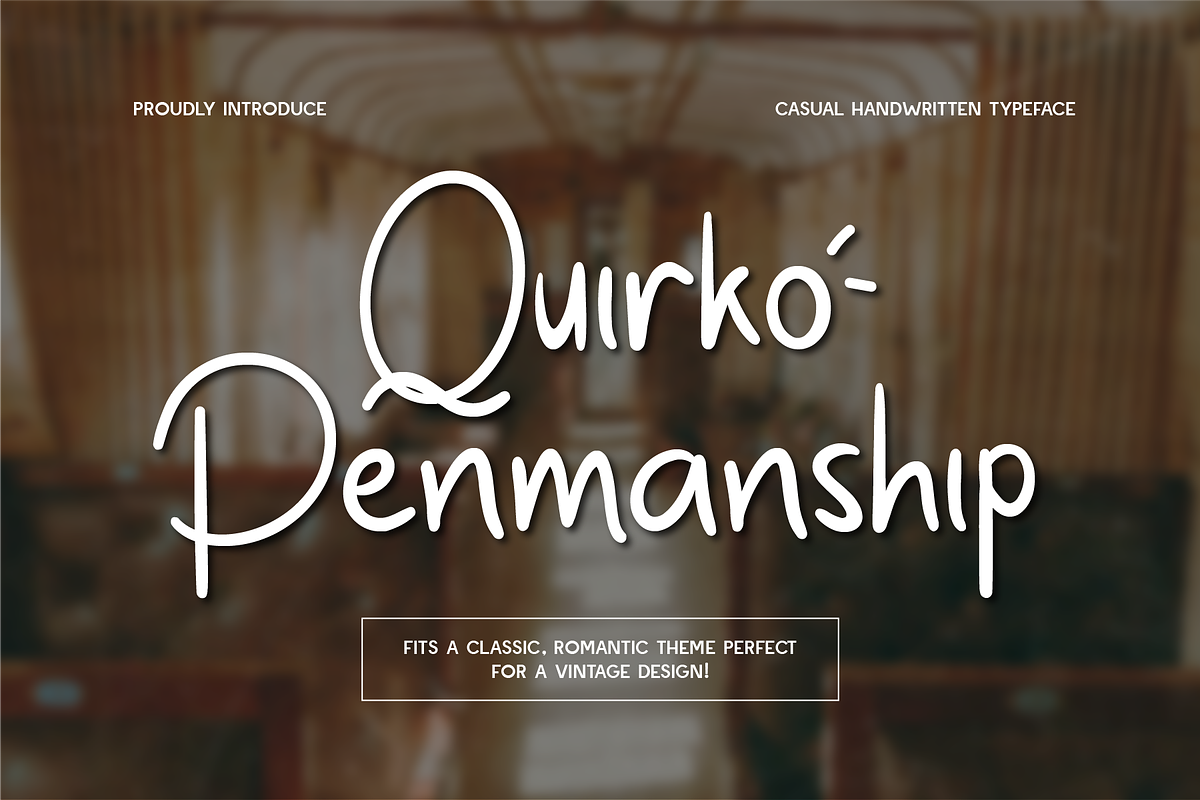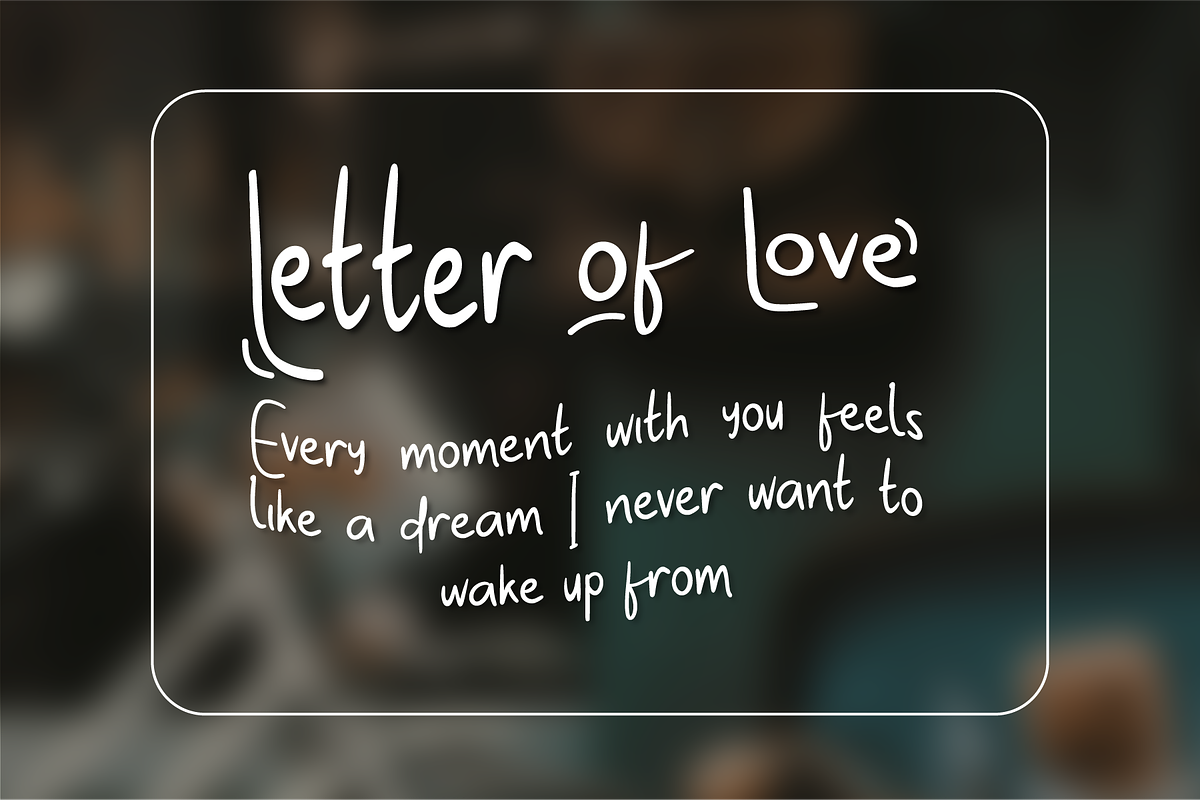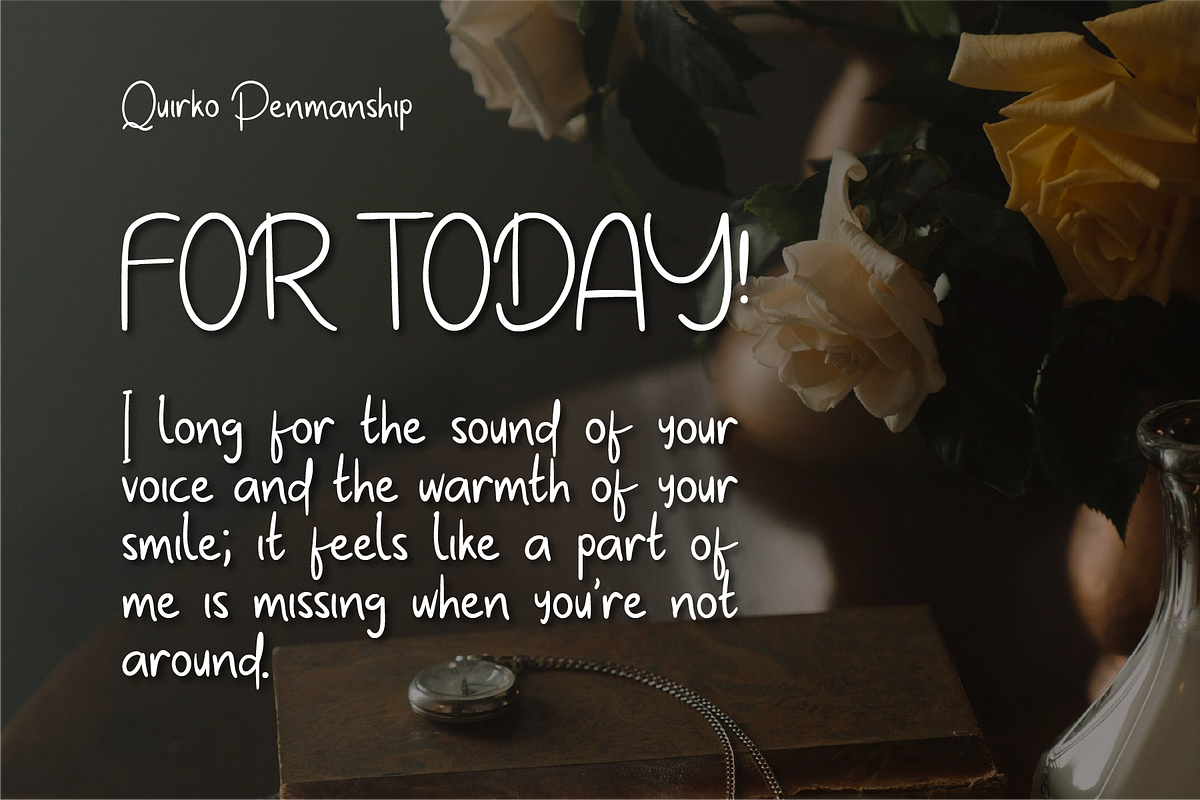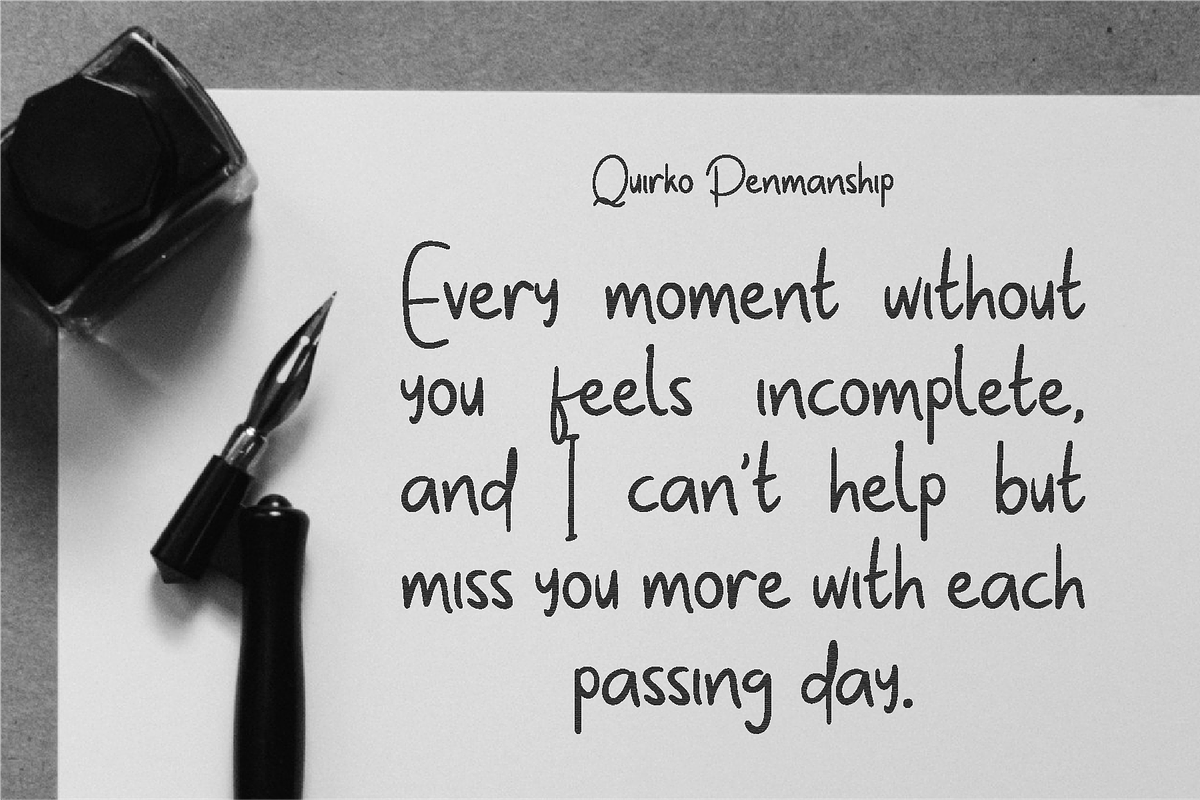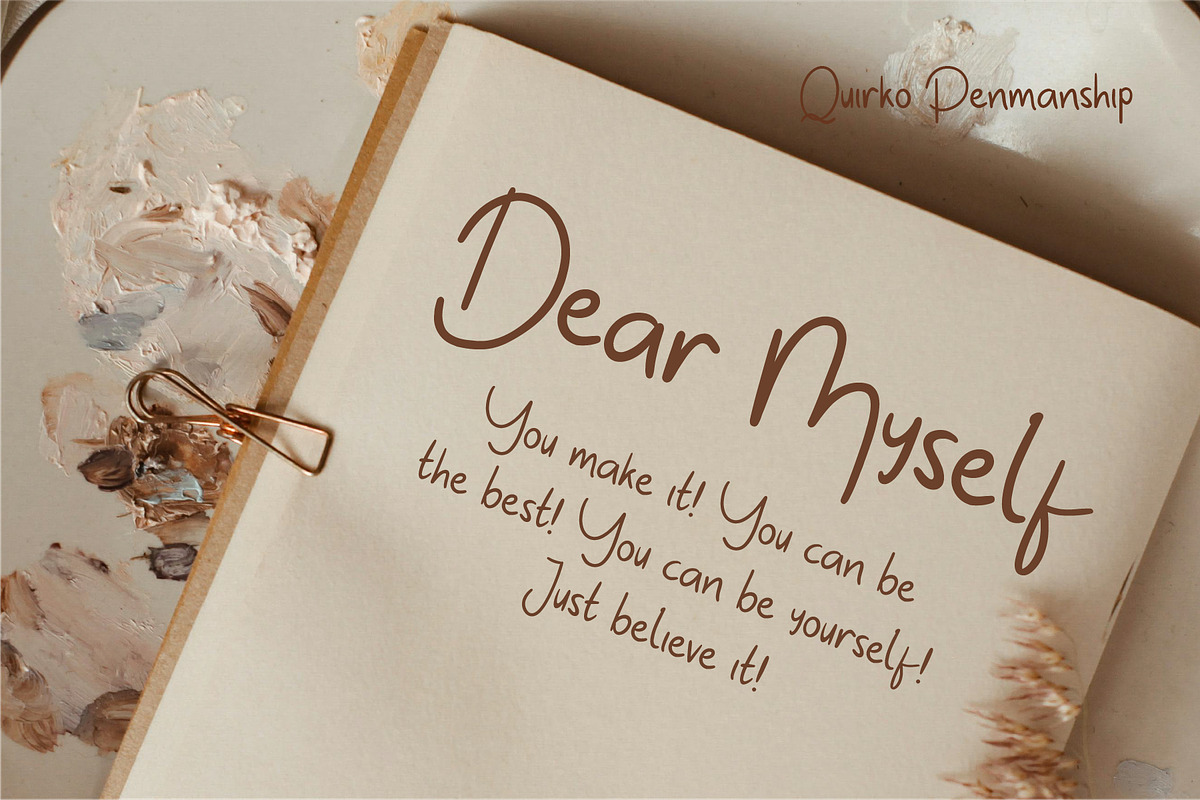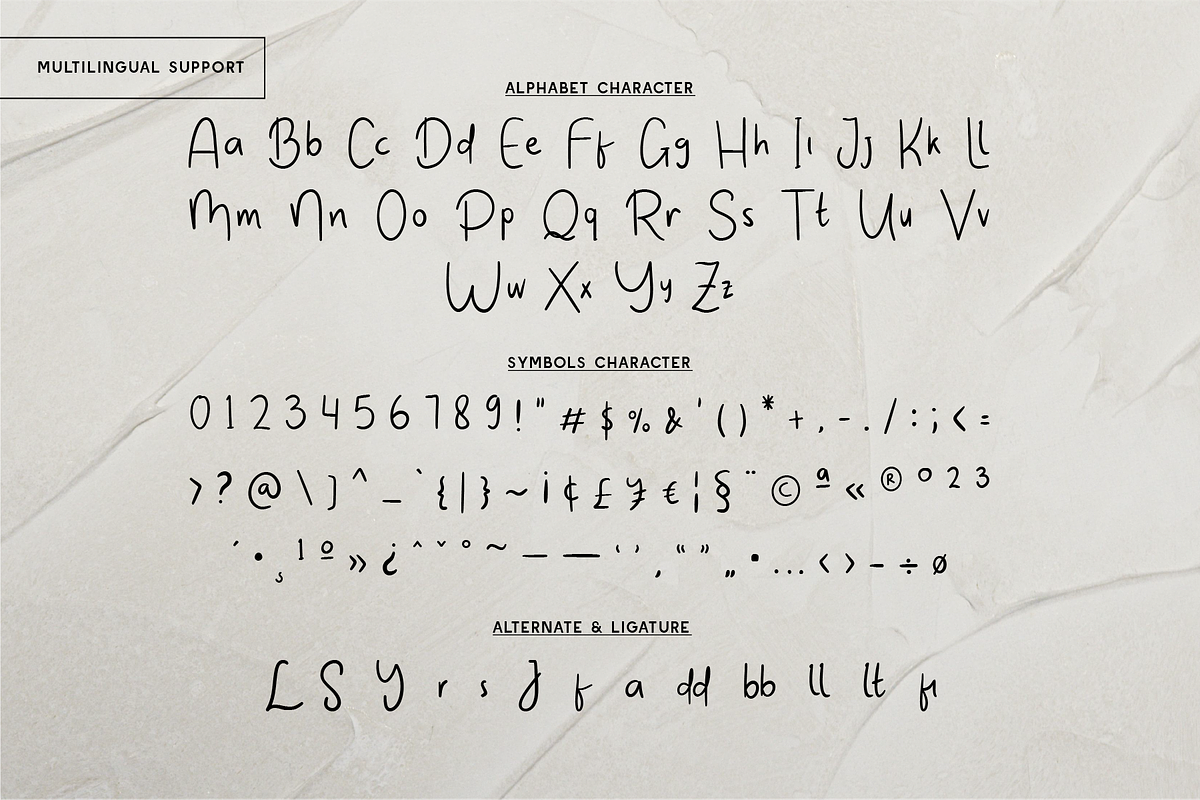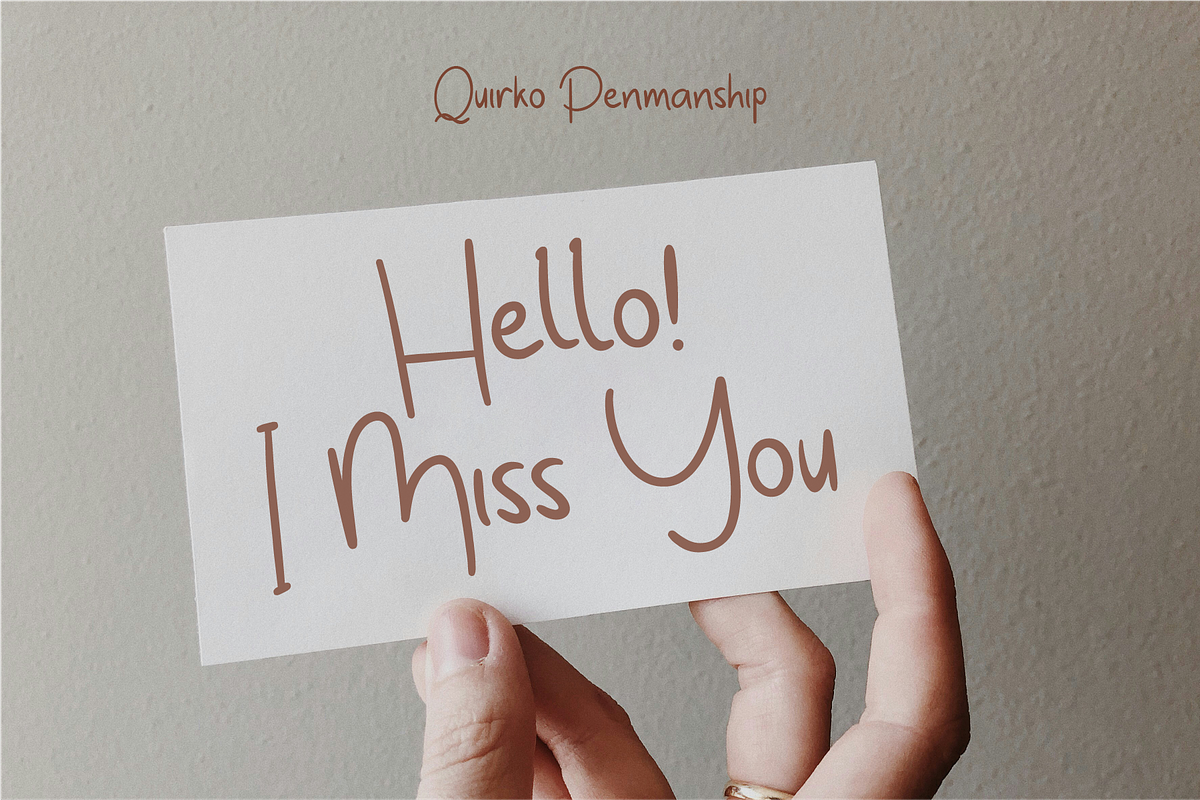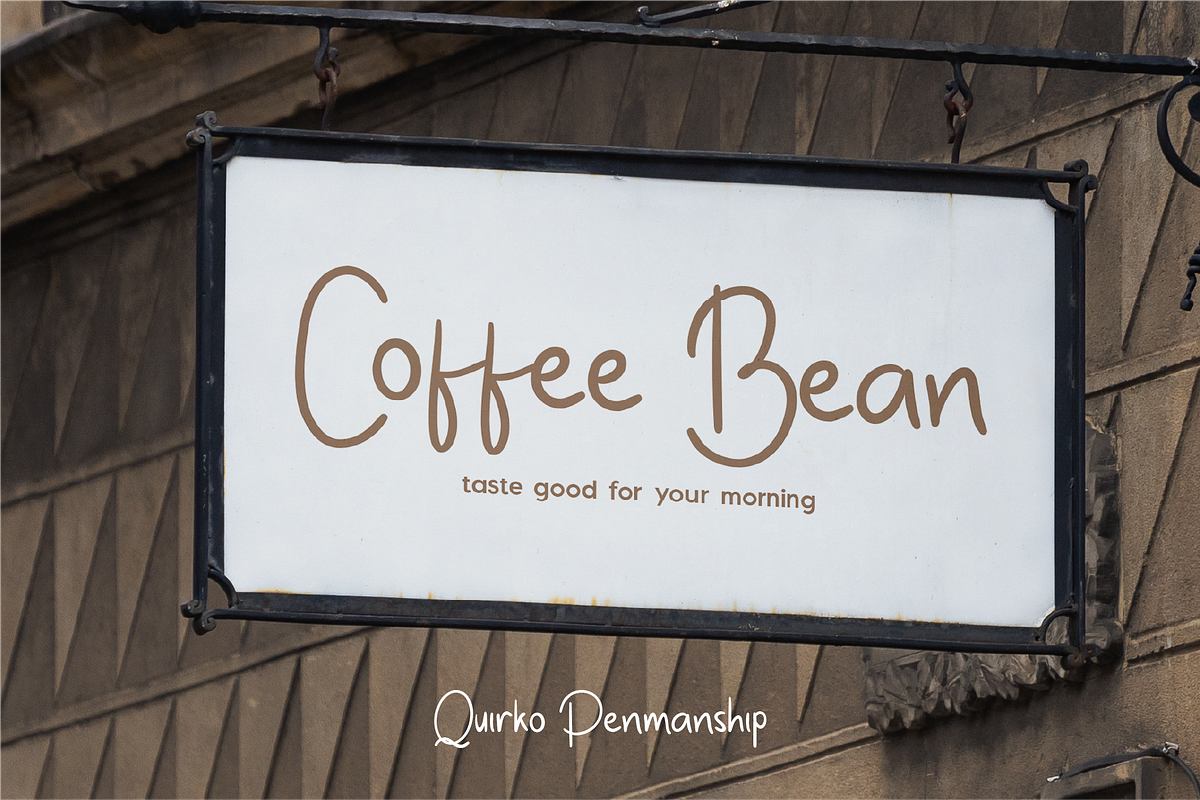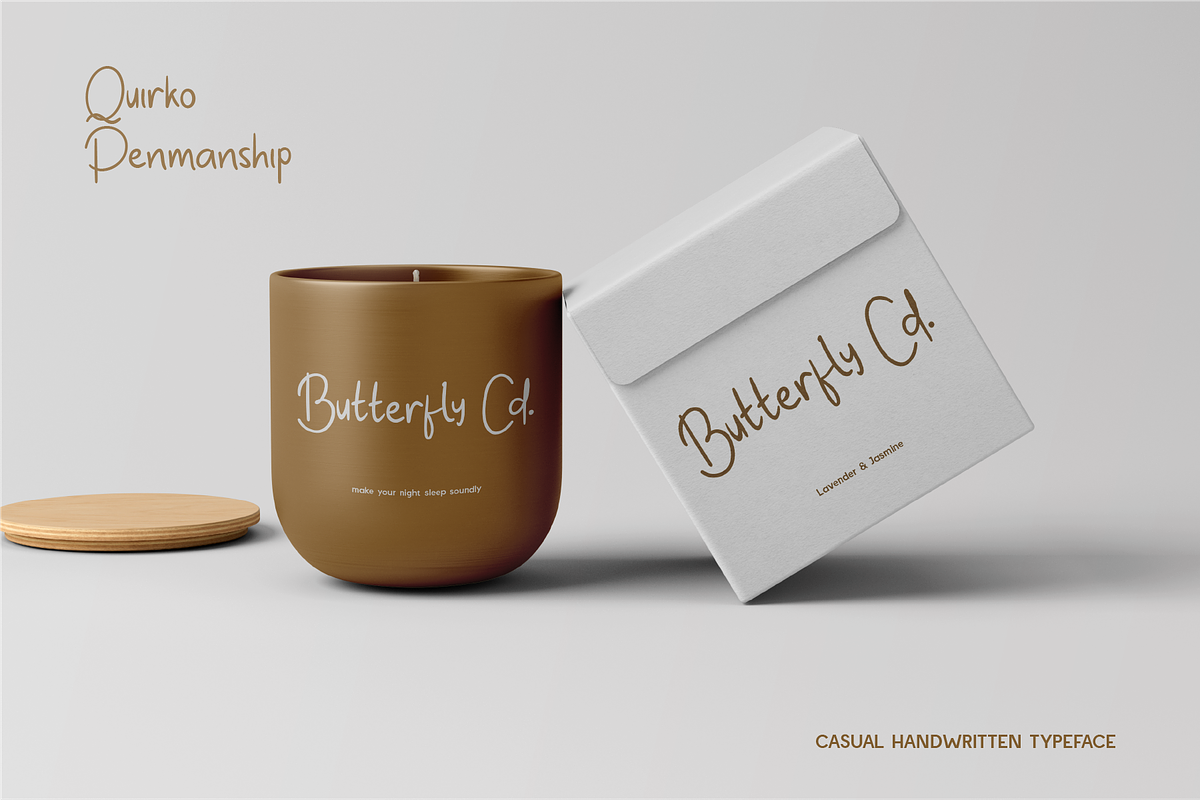
Quirko Penmanship - Handwritten Font
Quirko Penmanship is a charming handwritten font that captures the essence of casual elegance. With its gentle curves and playful strokes, this typeface radiates a romantic, vintage-inspired charm perfect for designs that seek a personal and authentic touch. Ideal for wedding invitations, social media posts, branding, or anything that needs a dash of whimsy, Quirko Penmanship effortlessly combines beauty and approachability.
- Standard Character A-Z, a-z, 0-9, Punctuation & symbols
- Regular Style
- Ligatures and Alternates Included